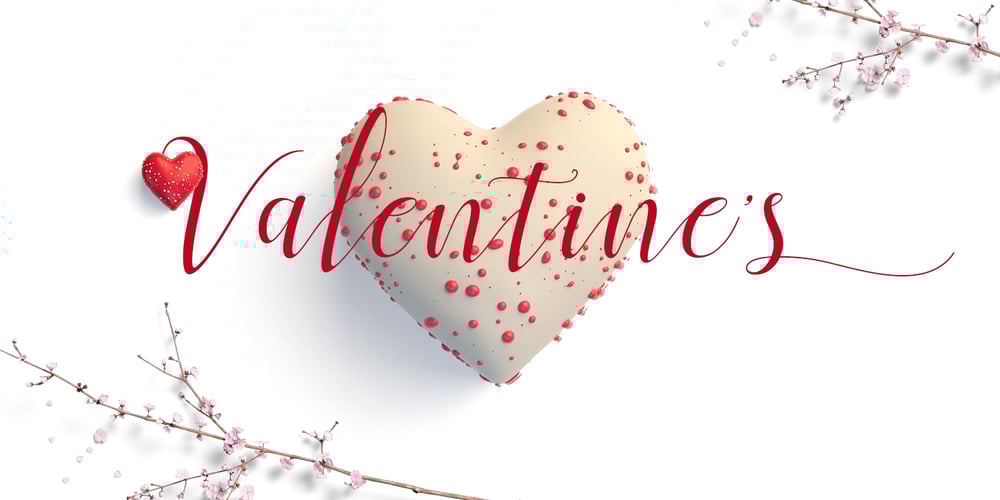
Shila Script Font Family was designed by Juni Fadil Putra and published by FadeLine Studio. Shila Script contains 1 styles and family package options. Shila Script, connecting script, designed to convey elegance and style. It is slender, feminine and friendly, let alone sexy. Shila Script will work perfectly for fashion, e-commerce brands, trend blogs, or any business that wants to appear classy and chic. The font is ideal for high-end logotypes and magazine headlines, but let’s not forget greeting cards, invitations, posters, ads and the various web usages. FadeLine Studio